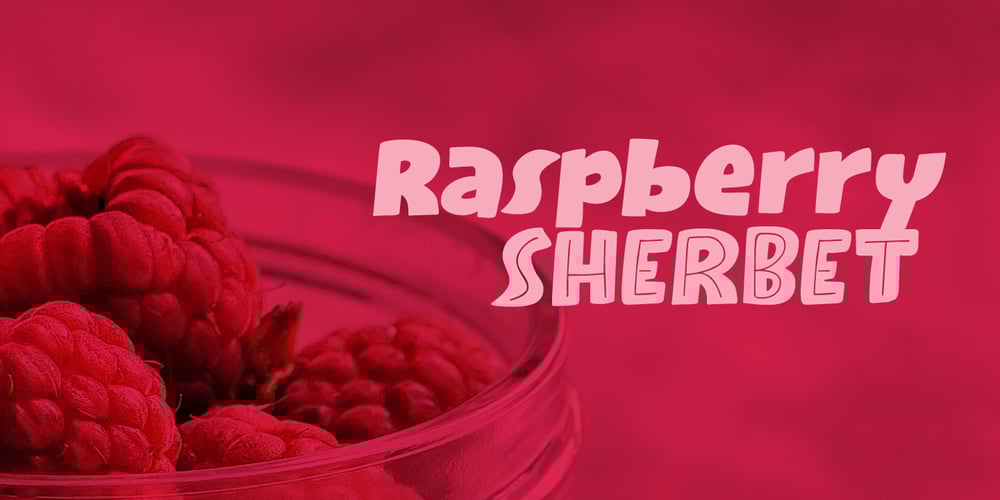
Raspberry Sherbet Font Family was designed by David Kerkhoff and published by Hanoded. Raspberry Sherbet contains 2 styles and family package options. I have actually never had a sherbet. When I made this font family, I wish I had one, as it was a whopping 38 degrees (Celsius, not Fahrenheit…) outside.Raspberry Sherbet is a cute little font family, consisting of a rounded fat kids font and an inline version.Comes with all the bells & whistles, plus a super duper cooling effect when you use it!